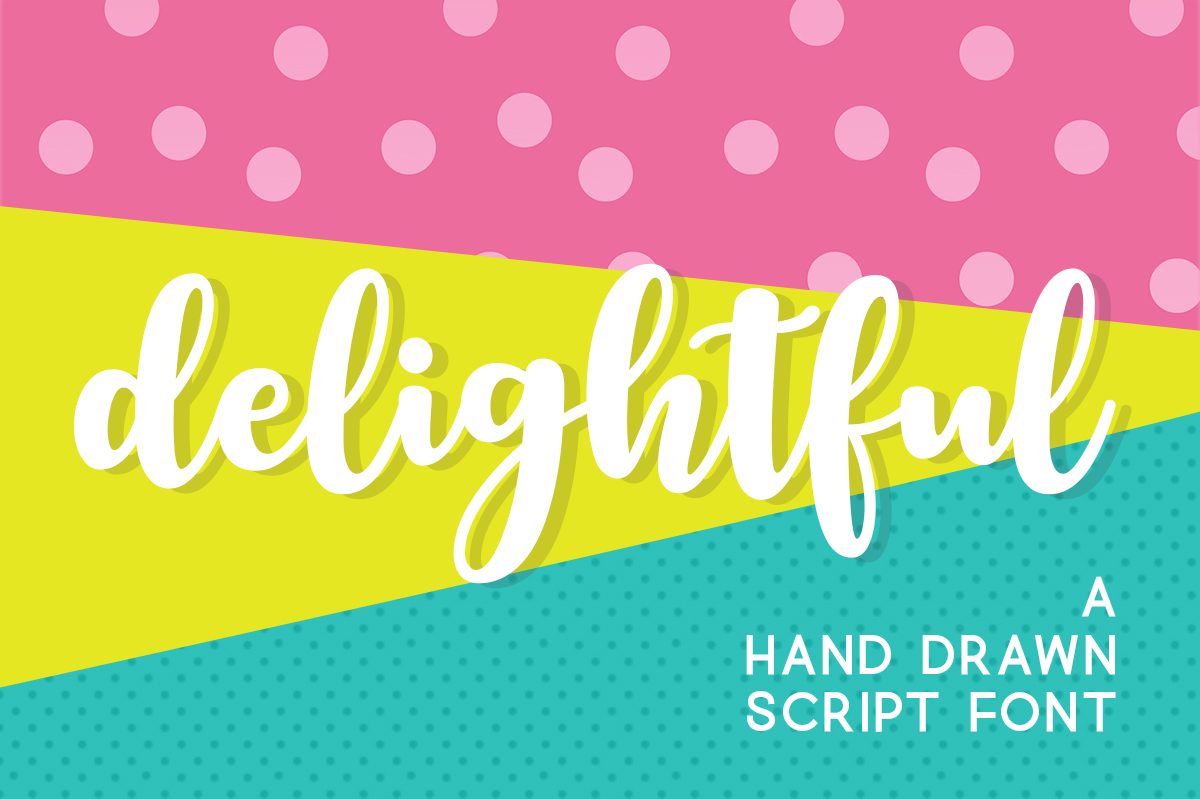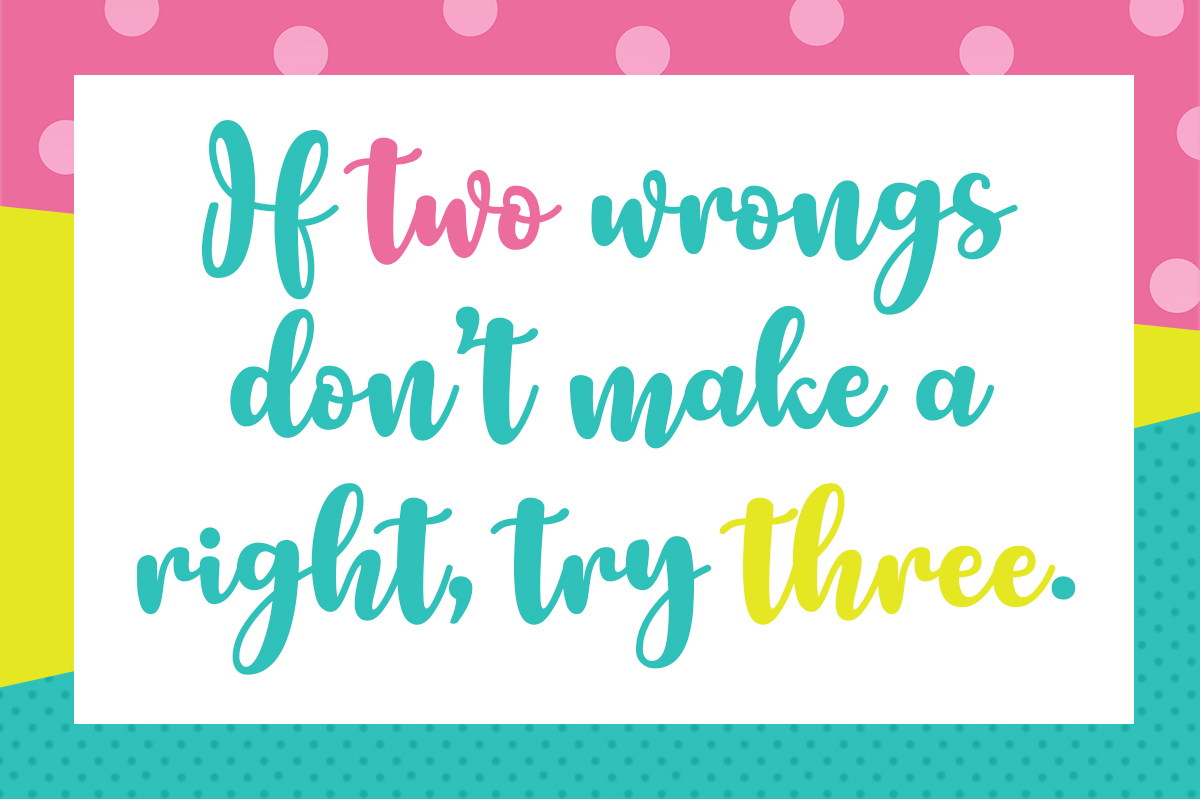
Delightful Font
About Delightful Font
Delightful is a fun and whimsical script font! This charming font is light and friendly, and can give your designs a comfortable and childlike vibe.